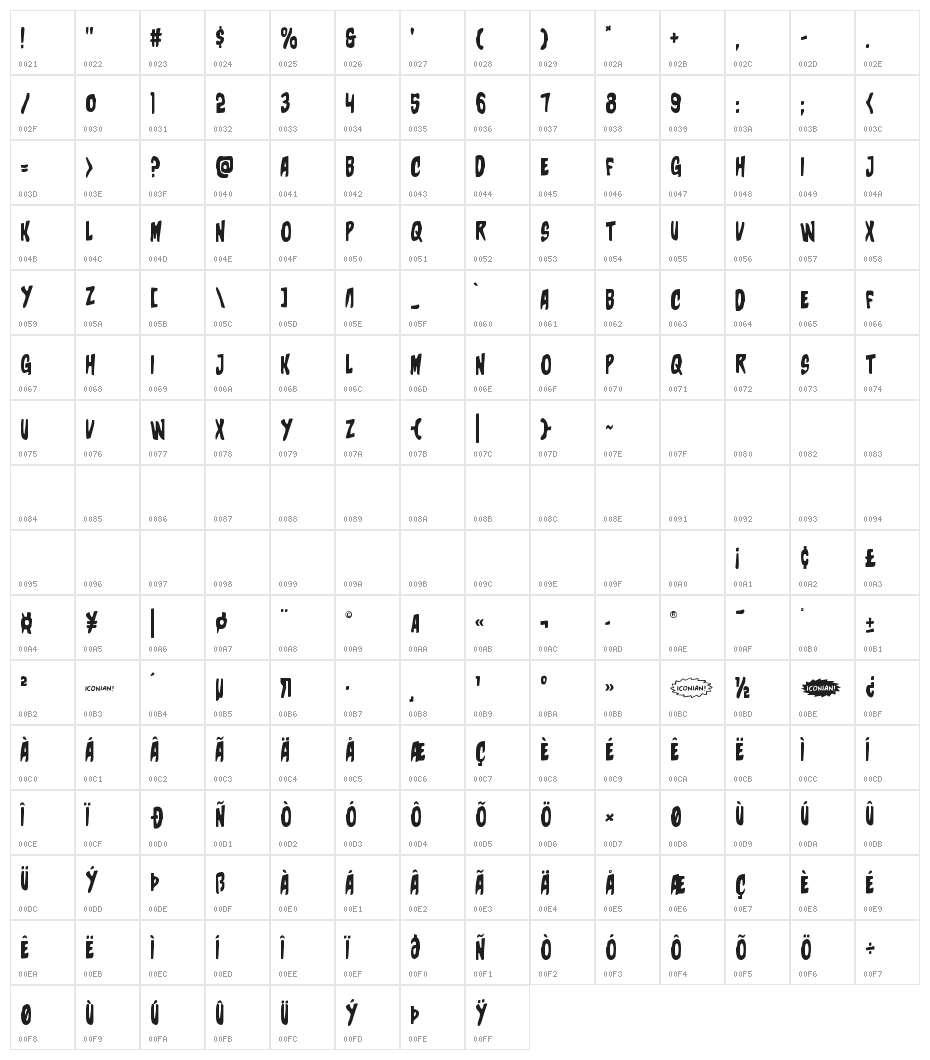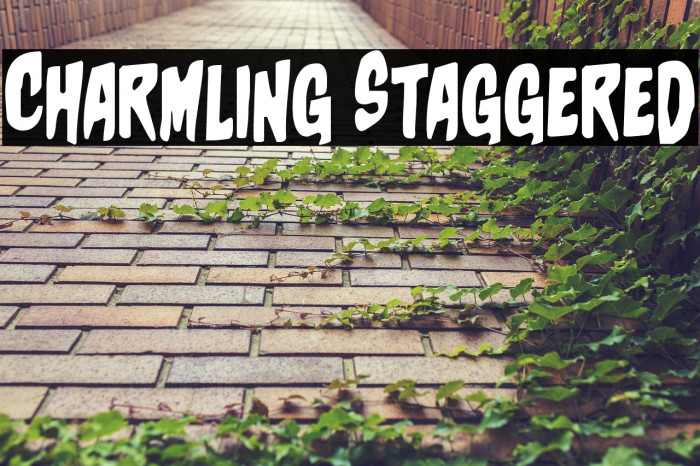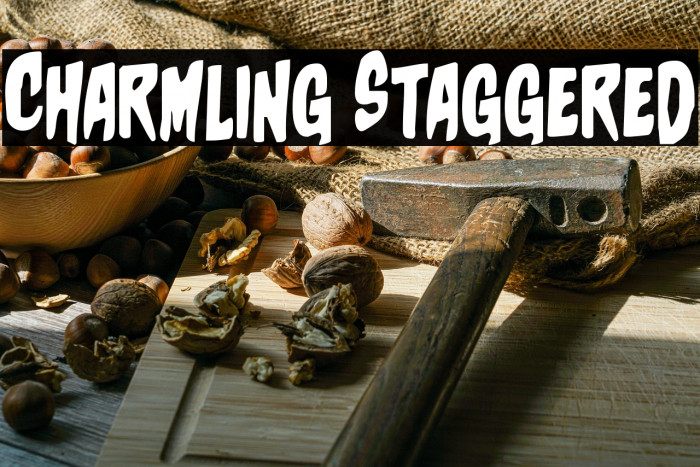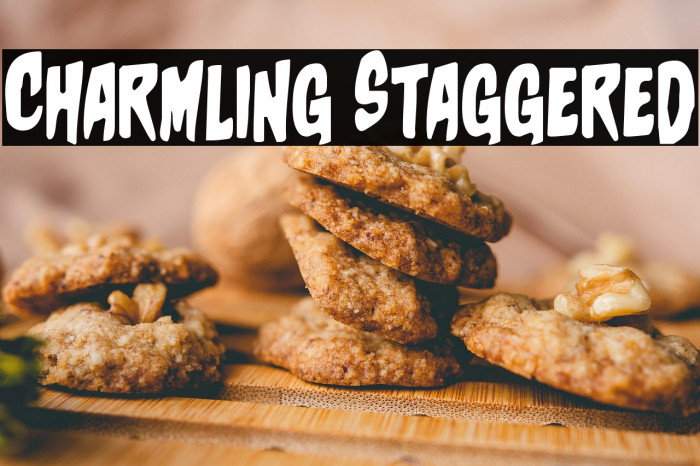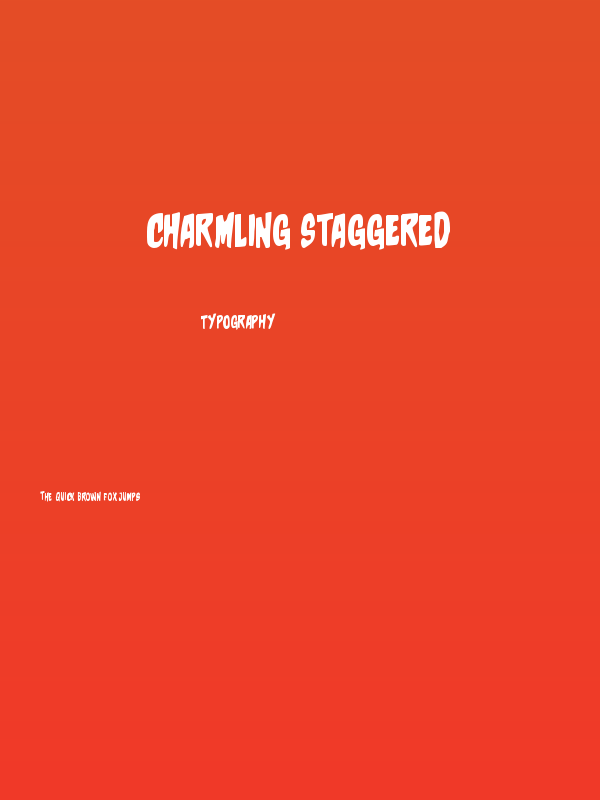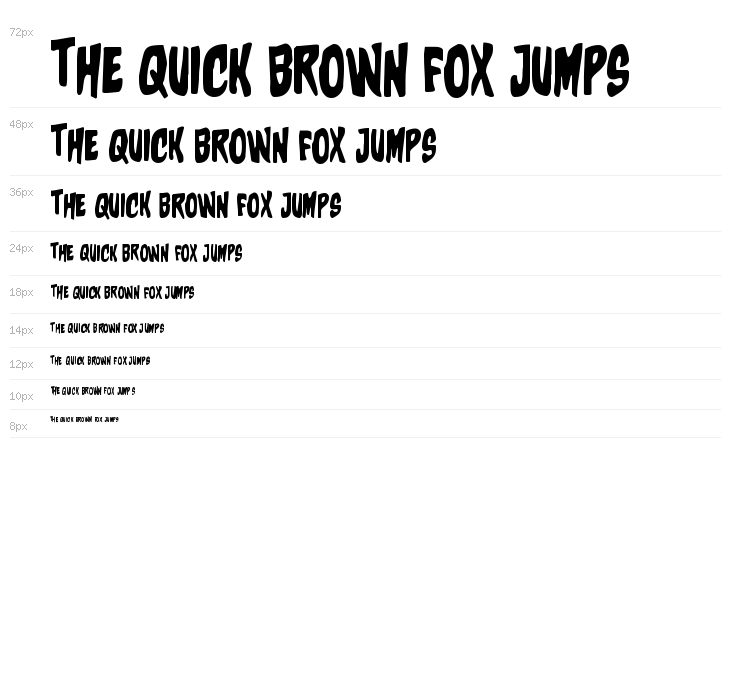
Charmling Staggered Font
Charmling Staggered Description
This font features a playful and bold design with a staggered, uneven baseline that gives it a dynamic and energetic appearance. The characters are thick and rounded, with a slightly irregular shape that adds to its whimsical charm. The uppercase and lowercase letters maintain a consistent style, while the numbers and special characters complement the overall look. This font is perfect for projects that require a fun and lively touch, making it ideal for children's books, playful branding, or eye-catching headlines. Its unique style ensures that it stands out in any design.
| Overall Style | Playful, Energetic, Whimsical |
| Proposed Projects | Ideal for children's books, playful branding, eye-catching headlines, and creative posters. |